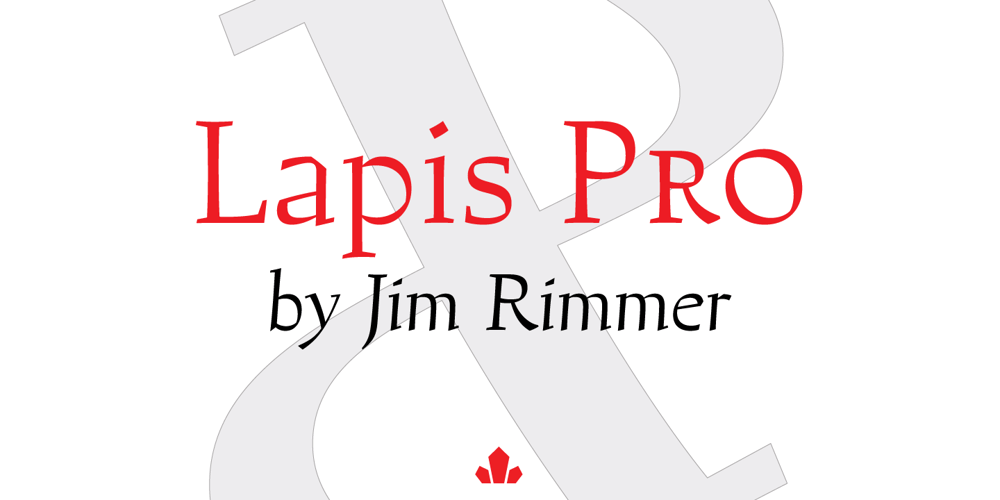
Lapis Pro
Lapis Pro font
Lapis Pro Font Family was designed by Jim Rimmer and published by Canada Type. Lapis Pro contains 6 styles and family package options. Lapis was Jim Rimmer’s venture into a territory he’d earlier explored with his Lancelot and Fellowship faces. This time he stayed much longer, dug pretty deep, and had plenty of fun in there. The end result is the kind of mosaic of influences only a guy like Jim could consider, gather, manage and apply in a way that ultimately makes sense and works as a type family. On the surface Lapis seems like something that can be billed as what Jim would have called an “advertising text face”. But under the hood, it’s a whole other story. On top of the calligraphic, nib-driven base Jim usually employed in his faces, Lapis shows plenty of typographic traits from a variety of genres, from Egyptian to Latin, from blackletter angularity to Dutch-like curvature, with an overall tension even reminiscent of wood type. There are some Goudy-informed shapes that somehow fit comfortably within all this. Then it’s all strung together with a mix of wedged, tapered and leaning serifs, placed with precision to reveal expert spontaneity and a great command of guiding the forms through counterspace. In the fall of 2013, the Lapis fonts were scrutinized and remastered into versatile performers for sizes large and small. The three weights and their italic counterparts have been refined and expanded across the board to include small caps, alternates, ligatures, ordinals, case-sensitive forms, six kinds of figures, automatic fractions, and a character set that covers an extended range of Latin languages. Each of the Lapis Pro fonts contains over 760 glyphs. For more details on the fonts’ features, text and display specimens and print tests, consult the Lapis Pro PDF availabe in the Gallery section of this page. 20% of Lapis Pro’s revenues will be donated to the Canada Type Scholarship Fund, supporting higher typography education in Canada.